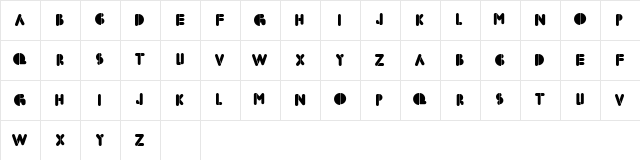
BoldFace Stencil Regular
Design Context for BoldFace Stencil
BoldFace Stencil borrows the utilitarian aesthetic of stencil lettering, with its characteristic cutaways and no-frills construction lending an industrial edge. Its bold stroke weight gives it real presence on the page.